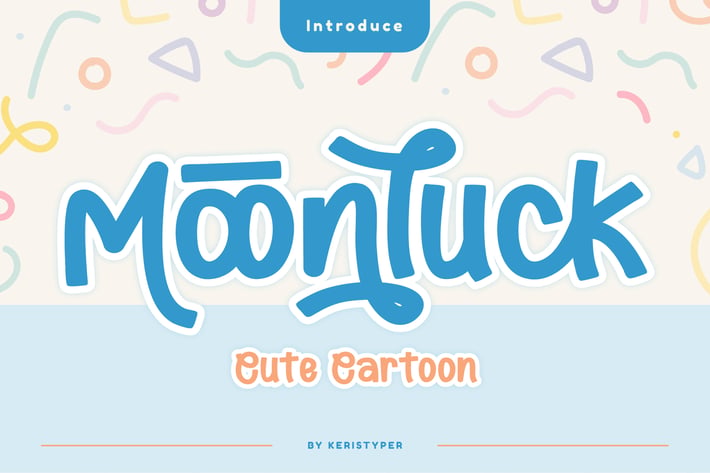
Moonluck Font
Moonluck is a playful and whimsical font with a cute and cartoonish feel. It features bold and rounded letters with a playful bounce, making it a perfect choice for designs aimed at children or anyone looking to add a touch of fun and playfulness to their projects.
Standard, Uppercase & Lowercase
Multilingual : ä ö ü Ä Ö Ü ß ¿ ¡
Alternate & Ligature